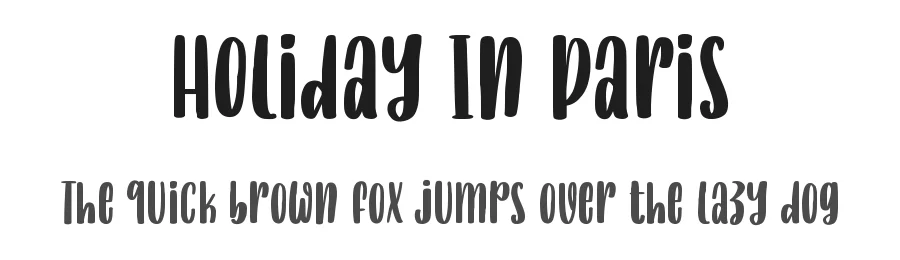
About Misfortune Font
Misfortune is a decorative font designed by Scotty Ulrich. It includes 107 glyphs, a regular weight, TTF (TrueType) format, and 107 languages. Misfortune is free to download; check the license details on this page before commercial use. Decorative fonts like Misfortune work best for logos, posters, packaging, and standout headlines.
Misfortune Font is a decorative font that shines as a display or heading face. Pair it with a clean sans-serif or serif font for body text β the contrast creates a clear hierarchy while the two styles stay balanced and easy to read.
Misfortune Font
Misfortune Font is a decorative typeface by Scotty Ulrich, ideal for logos, invitations, branding, and creative projects.